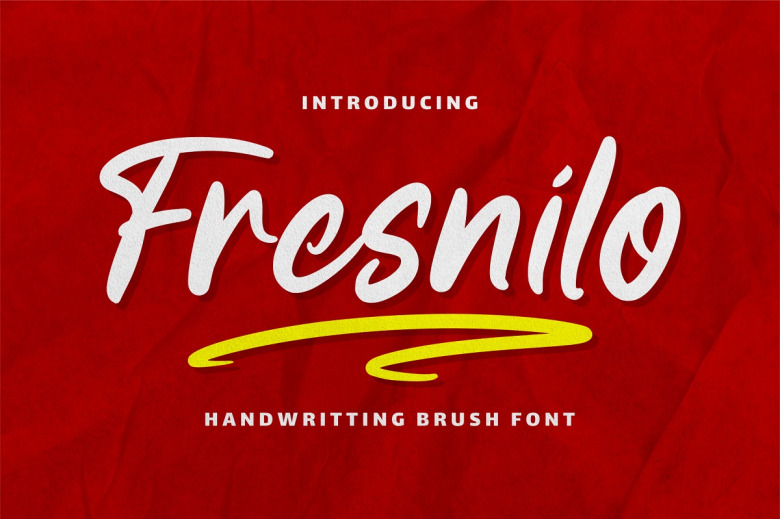
Fresnilo Font
Fresnilo is a clear Grotesk, handwritten typeface with thick strokes and slights variations within the letters. This font appears wise and authoritative , energetic, it can enhance your designs with lots of charisma and bring a sense of vintage in them. Thus it would be real appropriate to use it for creating posters, affiches, logos, t-shirts, magazine prints, pleasure to eye better typographic designs and many others.
Fresnilo Brush Script Font